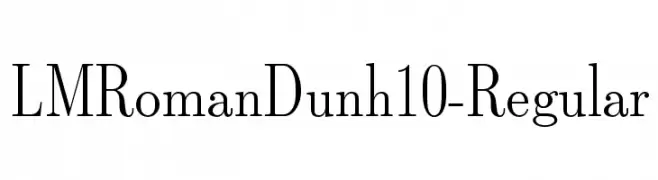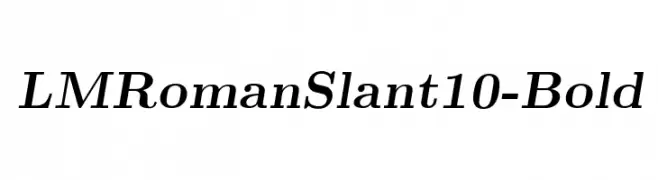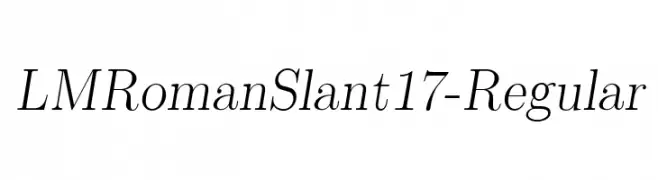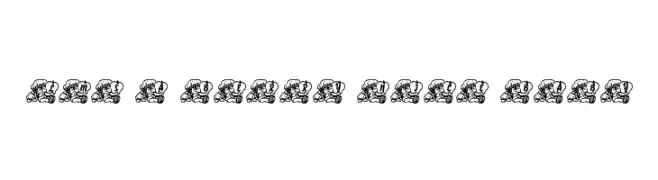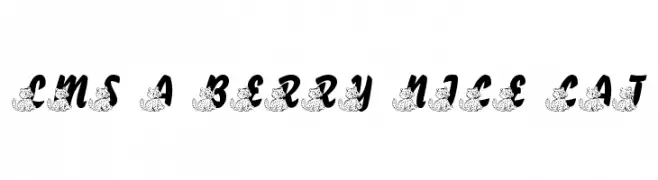
A classic serif font with high contrast and elegant strokes.
A bold, slanted serif font with elegant and dynamic characteristics.
Elegant serif font with a slant, featuring moderate contrast and classic styling.
A classic, elegant serif font with a slight slant and medium contrast.
Elegant serif font with a slant, offering a classic and sophisticated look.
A classic serif font with a slant, offering elegance and readability.
A classic serif font with elegant curves and a refined, traditional appearance.
A playful, cartoon-style font with letters embedded in bear illustrations.
A playful font with bold letters and cartoon-style cats integrated into each character.